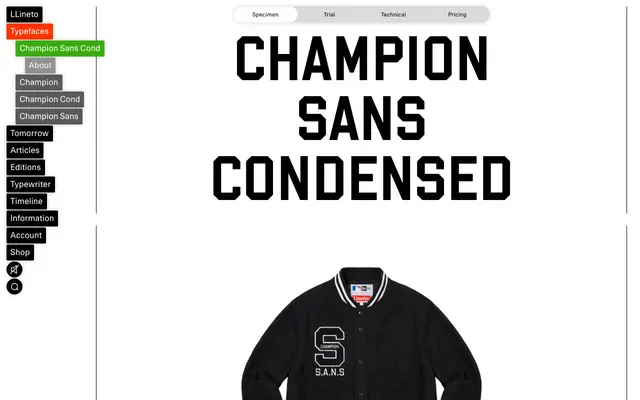
LL Champion Sans Cond
Lineto · Weichi He · 2024
The condensed sans cut of Weichi He's rigorously systematised take on the US varsity jersey letterform tradition, built without a single curve.
Part of the LL Champion family released in 2024, this condensed sans variant strips out the slab serifs while retaining the strictly angular, monolinear construction derived from turn-of-the-century American wood type and sports jersey lettering. The family is duplexed, meaning each weight shares a fixed box width to prevent text reflow and reinforce the mechanical character of the forms. A Shadow version allows independent use or layering with a colour fill, extending the display possibilities of the design.
A monolinear, angular sans with no curves, derived from the US varsity jersey tradition. Though it lacks serifs in this cut, its rigid geometric construction and display-oriented origins place it firmly in the display category with a geometric sans subcategory.